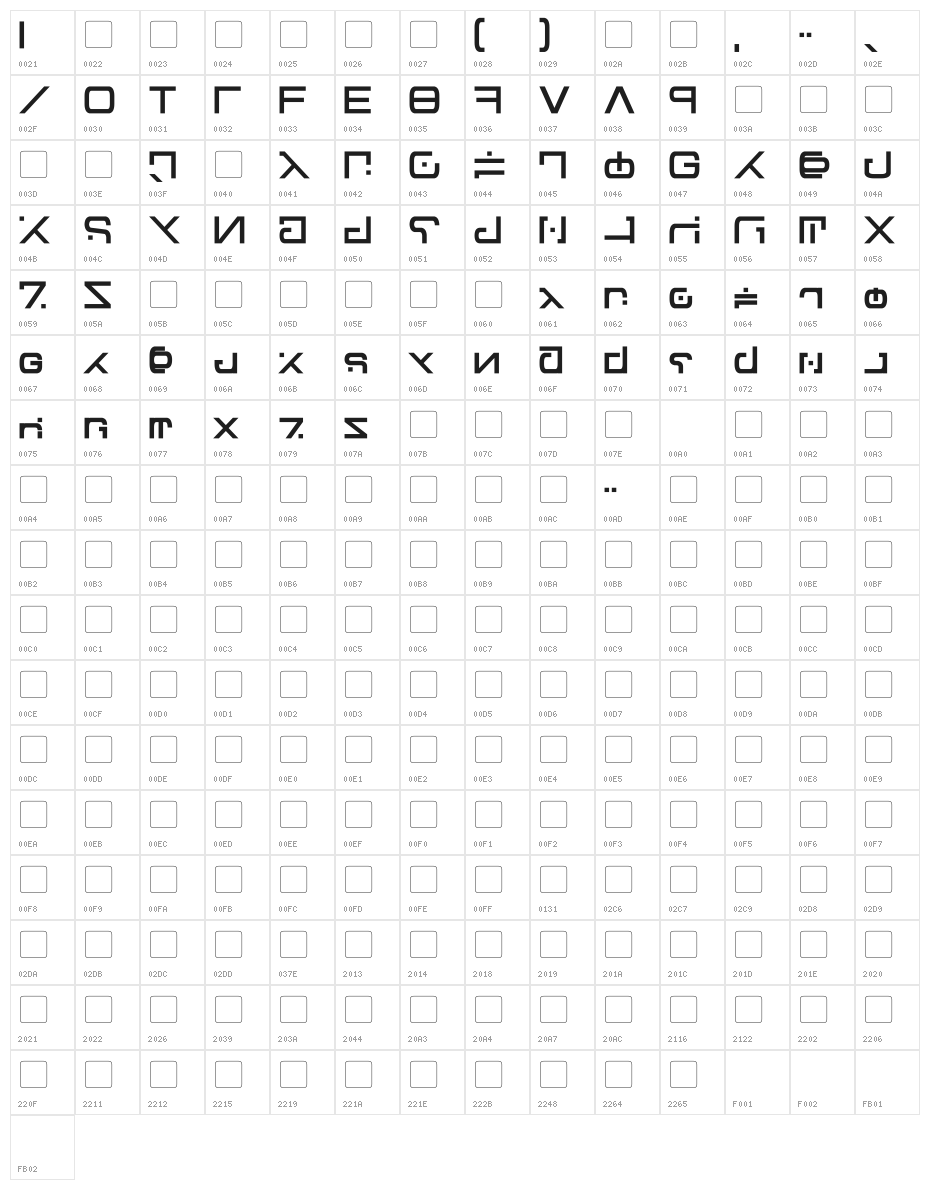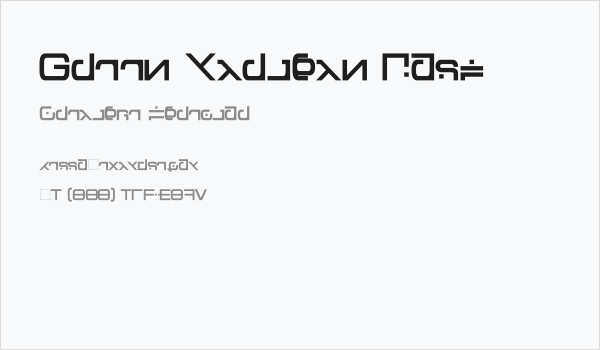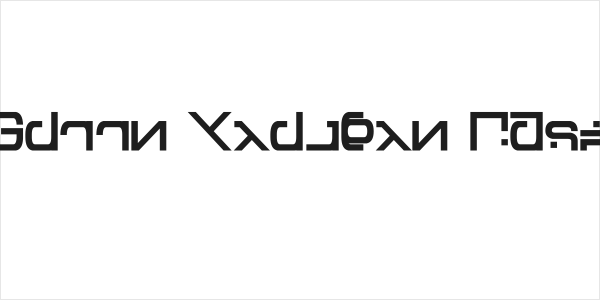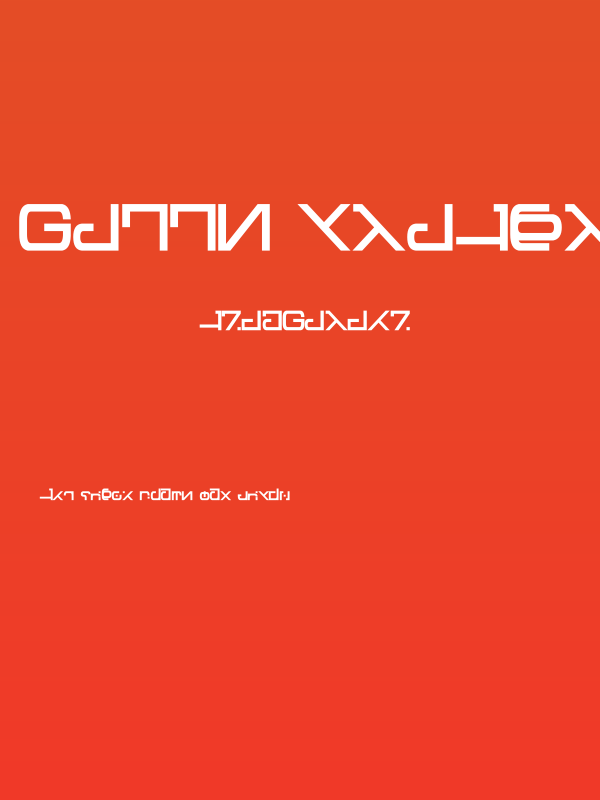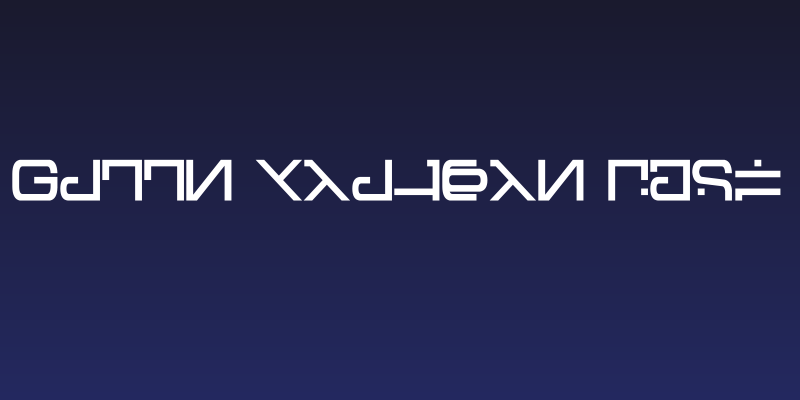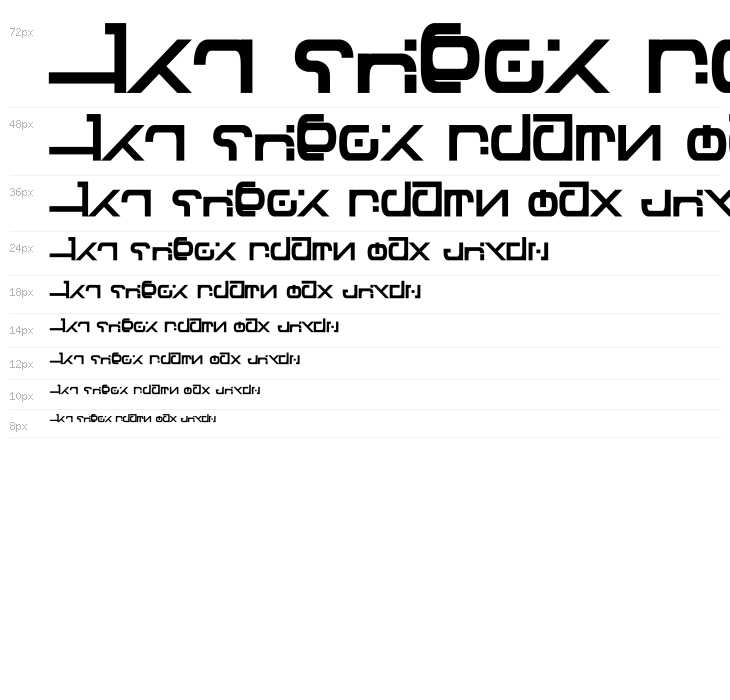
Green Martian Bold Font
Green Martian Bold Description
This font features a futuristic and geometric design, characterized by its bold and angular letterforms. The characters are constructed with a combination of straight lines and sharp angles, giving it a distinctly modern and technological appearance. The uppercase and lowercase letters maintain a consistent style, with a uniform height and width that contributes to its structured look. The numbers and special characters are designed to match the overall aesthetic, ensuring a cohesive appearance across all glyphs. This font is ideal for projects that require a cutting-edge and innovative feel, such as technology branding, sci-fi themed designs, and modern digital interfaces.
| Use Case | Logos, Headlines |
| Proposed Projects | Ideal for technology branding, sci-fi themed designs, and modern digital interfaces. |